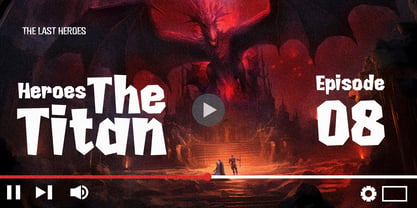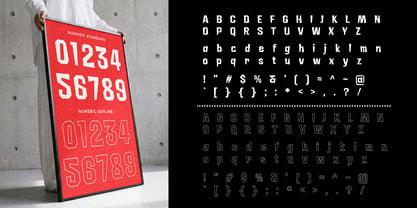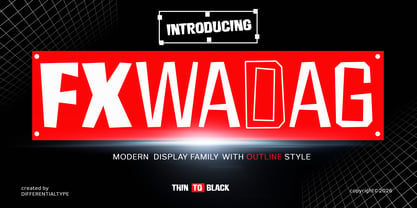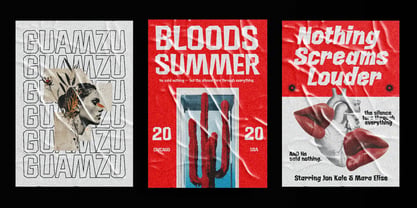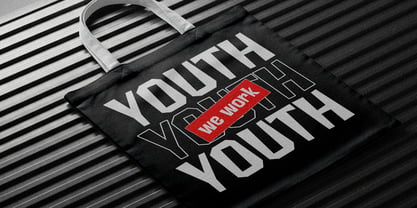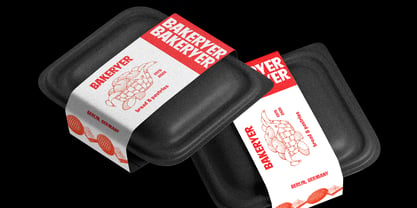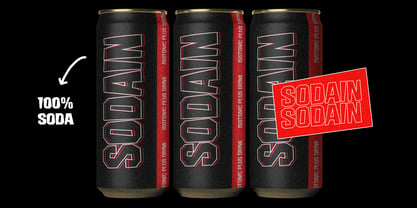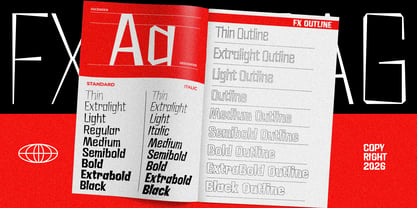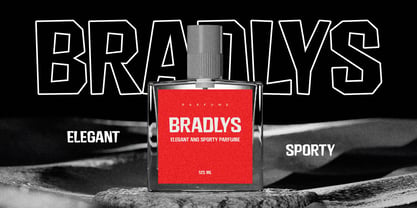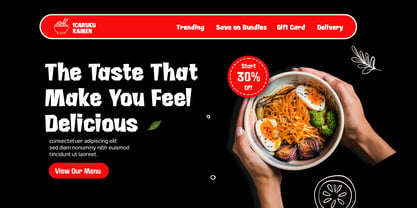
FX Wadag
by Differentialtype
The FX Wadag Font Family was designed by Sidik Sidik and published by Differentialtype. FX Wadag contains 36 styles and family package options. More about this family
FX Wadag is a formidable display font family engineered to command an absolute physical presence within any design space. This typeface draws its essence from the concept of "Wadag"—representing the tangible, solid, and outer form. Its visual language is defined by massive block constructions, razor-sharp tectonic angles, and a bold architectural framework that exudes a powerful industrial-futuristic vibe.
Now expanded into a massive collection of 36 styles, FX Wadag provides unparalleled creative flexibility. Every weight, from its lighter tones to the explosive Black variant, is paired with a precision-engineered Outline version. This integrated system allows designers to explore advanced layering techniques, adding profound visual dimension to high-impact branding, event posters, streetwear identities, and dynamic motion graphics.